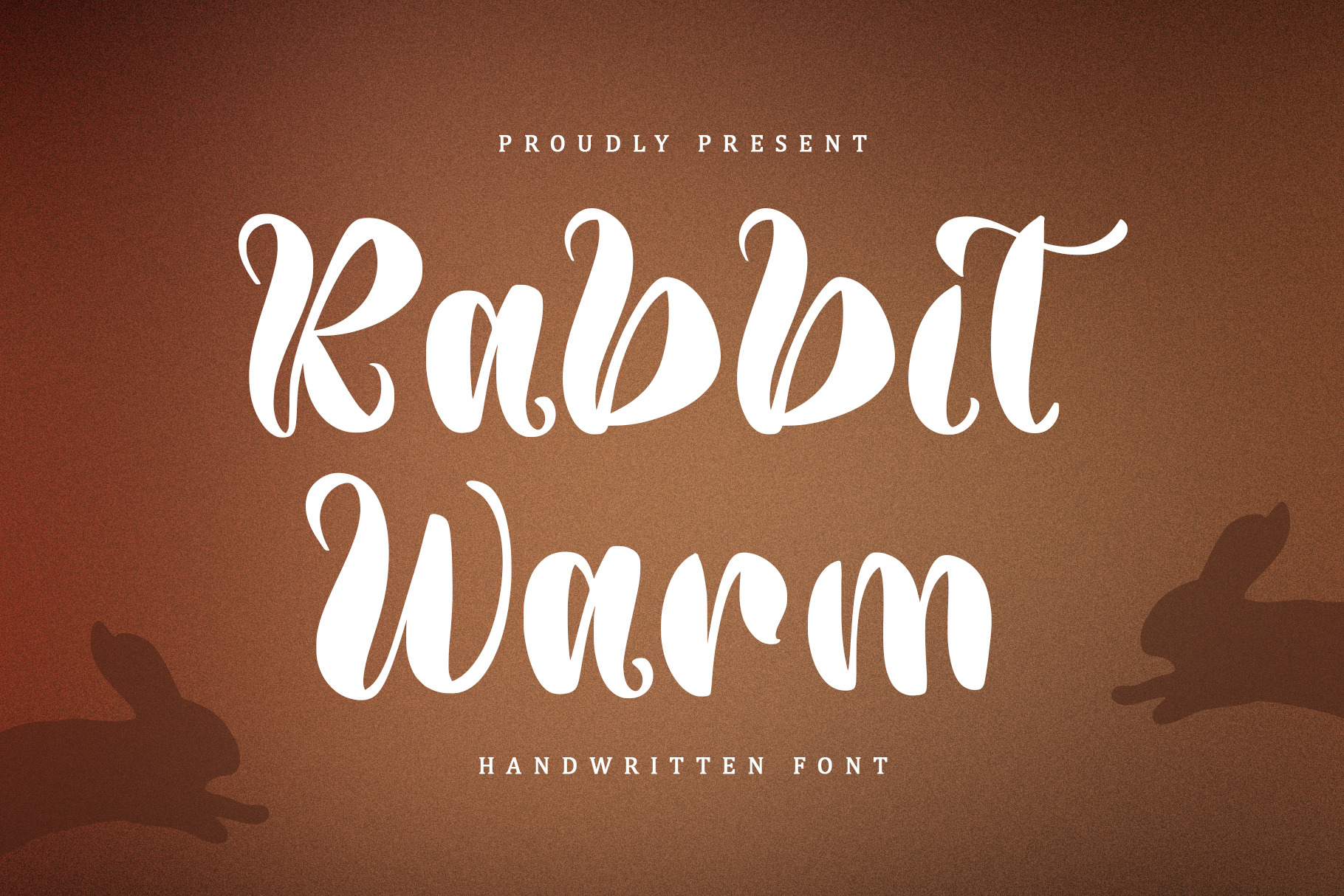
Rabbit Warm | Handwritten Font
Rabbit Warm is a modern and elegant font that radiates beauty and charm. With its flowing lines and delicate details, this font is perfect for adding a touch of romance to any design. Let your creativity soar with Rabbit Warm and create designs that capture the essence of love and beauty. Keep in mind that the font is PUA encoded, meaning that you can access all delightful glyphs and swashes effortlessly.